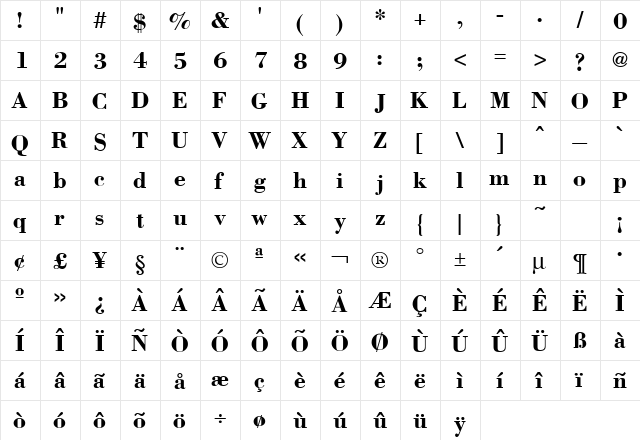
Bodoni ICG Bold Font Preview
Bodoni ICG Bold
Bodoni ICG Bold Font Details
Design Context for Bodoni ICG Typeface
Bodoni ICG takes a measured approach to typography — its balanced proportions and neutral character make it a reliable workhorse for both digital and print work. Its bold stroke weight gives it real presence on the page.